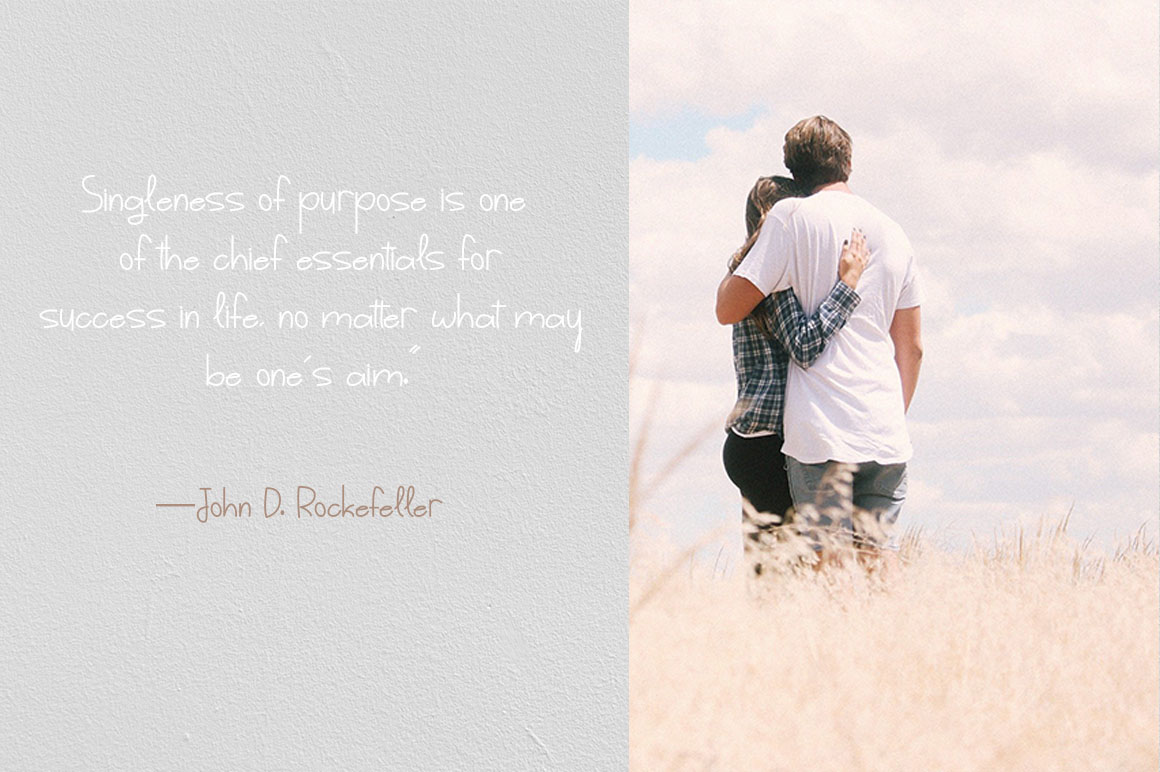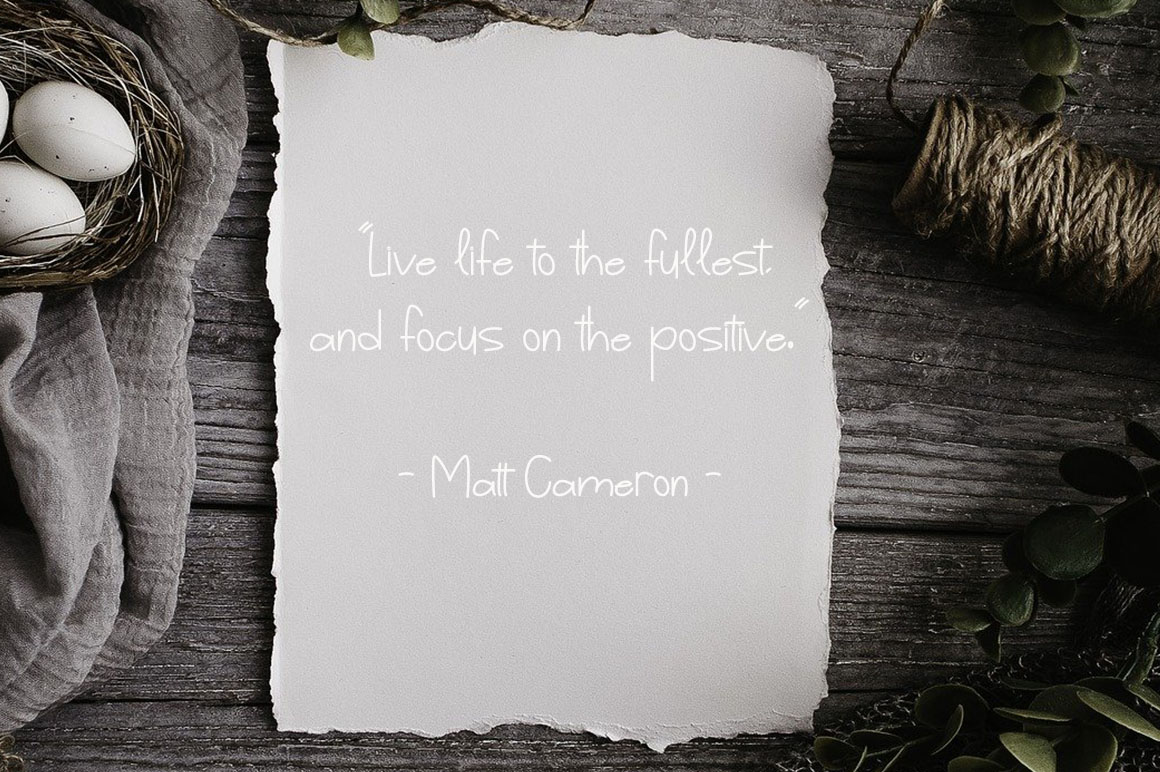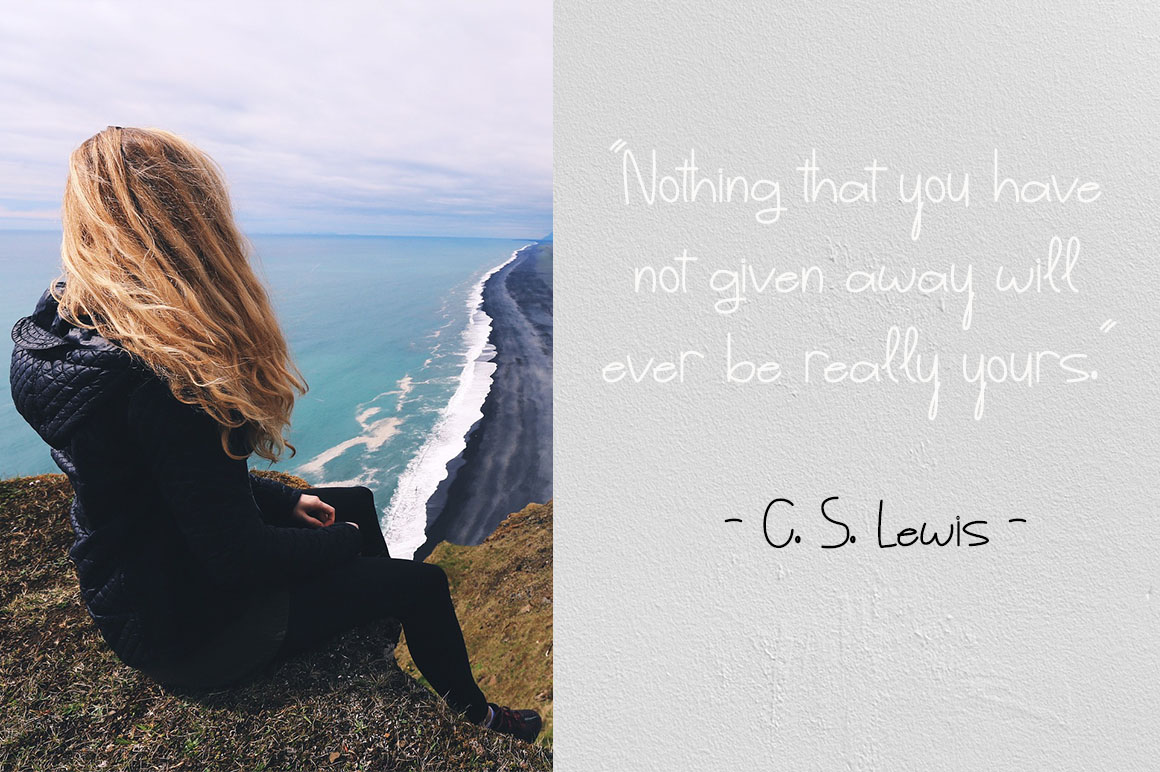
MoonStone Handwritten Font
This is a cute and delightful handwritten font. Warm, romantic and jolly, this font will turn each of your project ideas into real works of art. Have fun with this beautiful font and explore its endless variations.